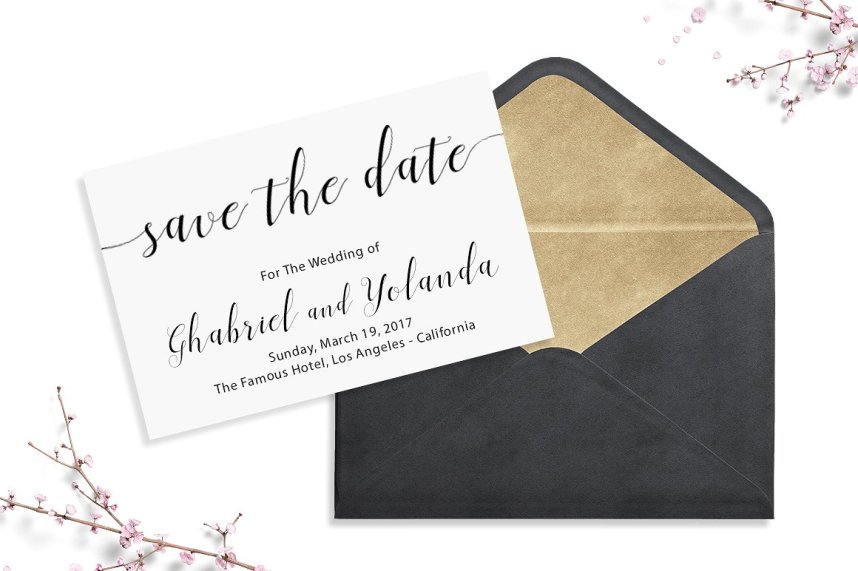
Menttion Script – Free Demo
Introducing Menttion Script Font! Menttion designed by FadeLine, this is a premium font, are sold on creativemarket, but it was great, it is free today for download. Menttion Script, connecting script, designed to convey elegance and style. It is slender, feminine and friendly, let alone sexy. Menttion Script will work perfectly for fashion, e-commerce brands, trend blogs, or any business that wants to appear classy and chic.